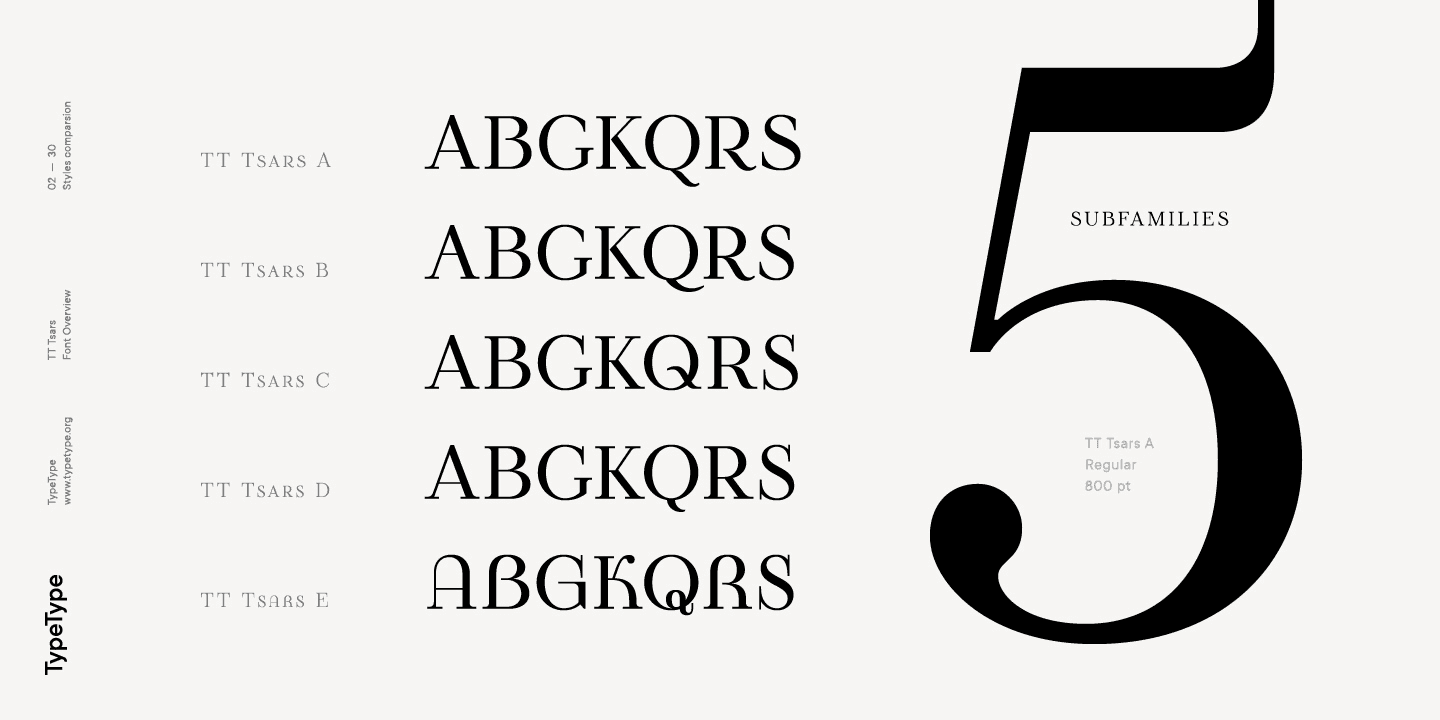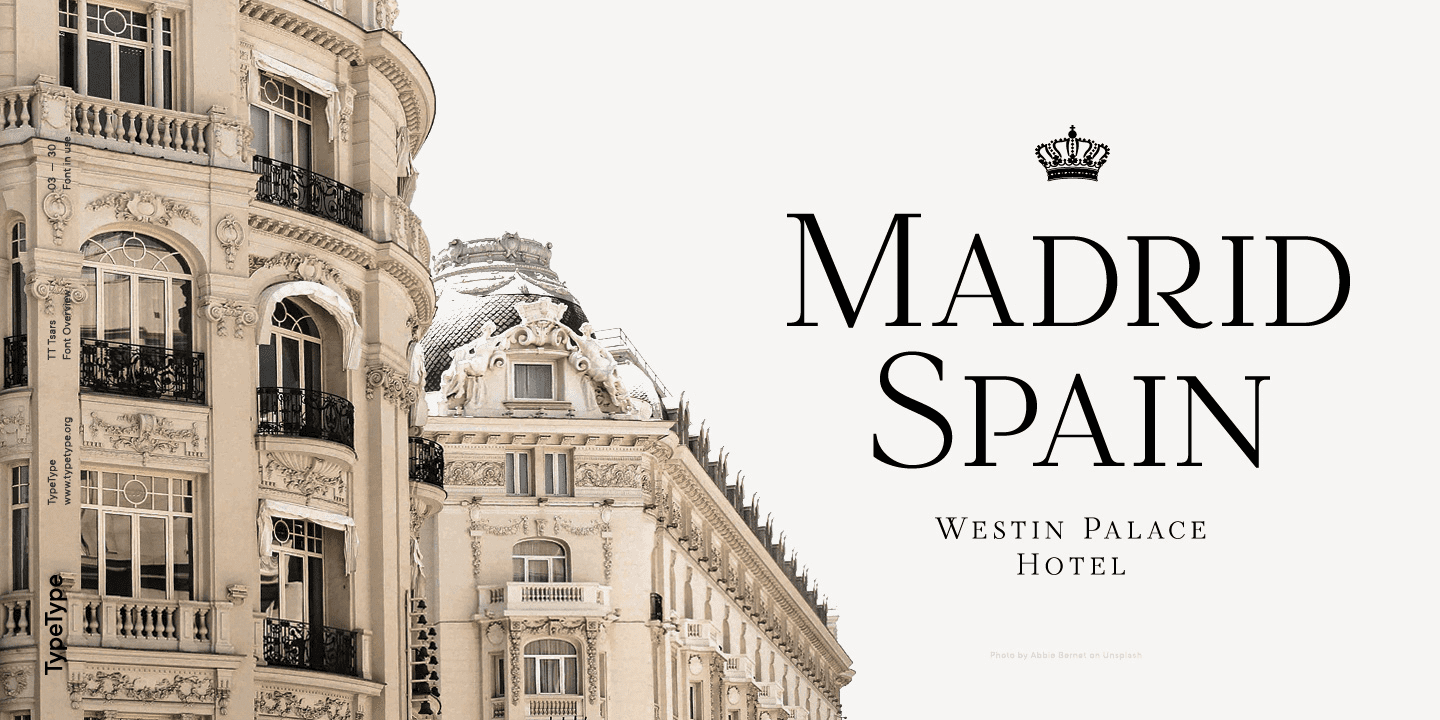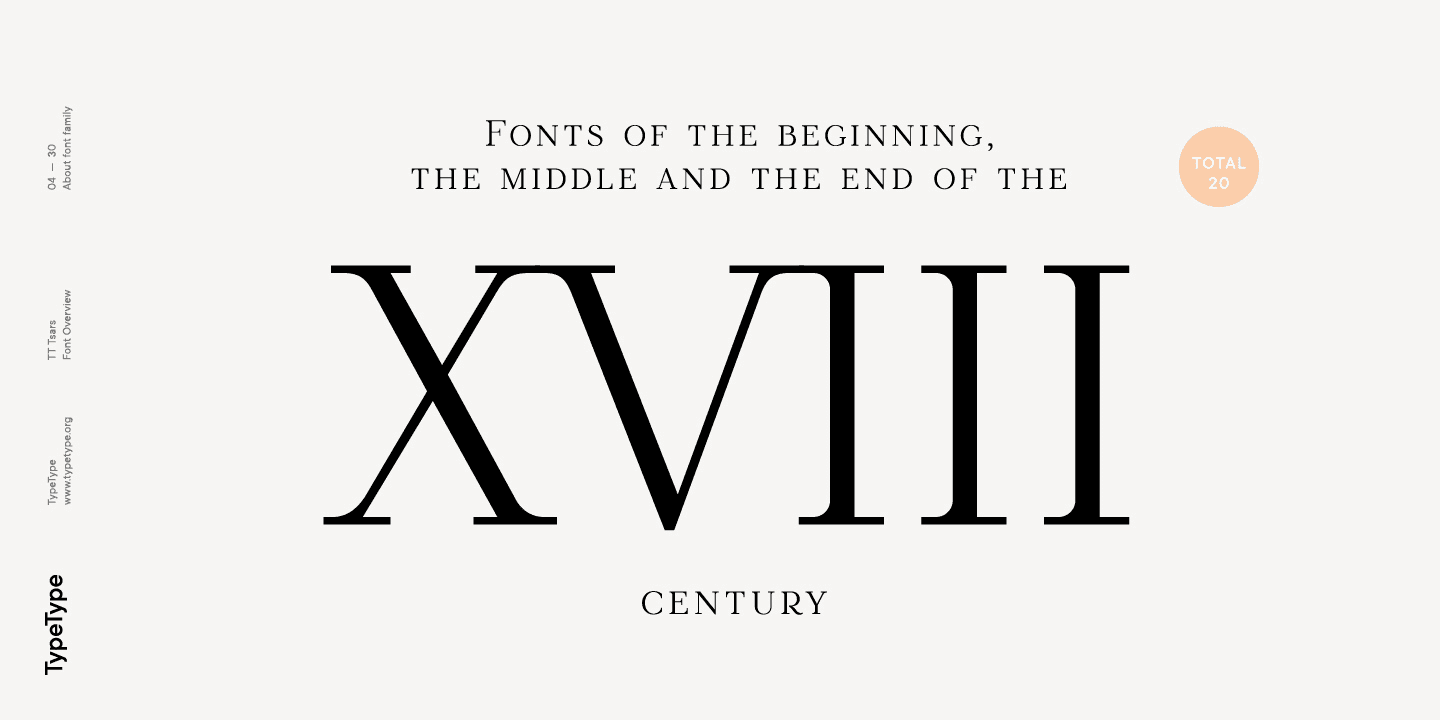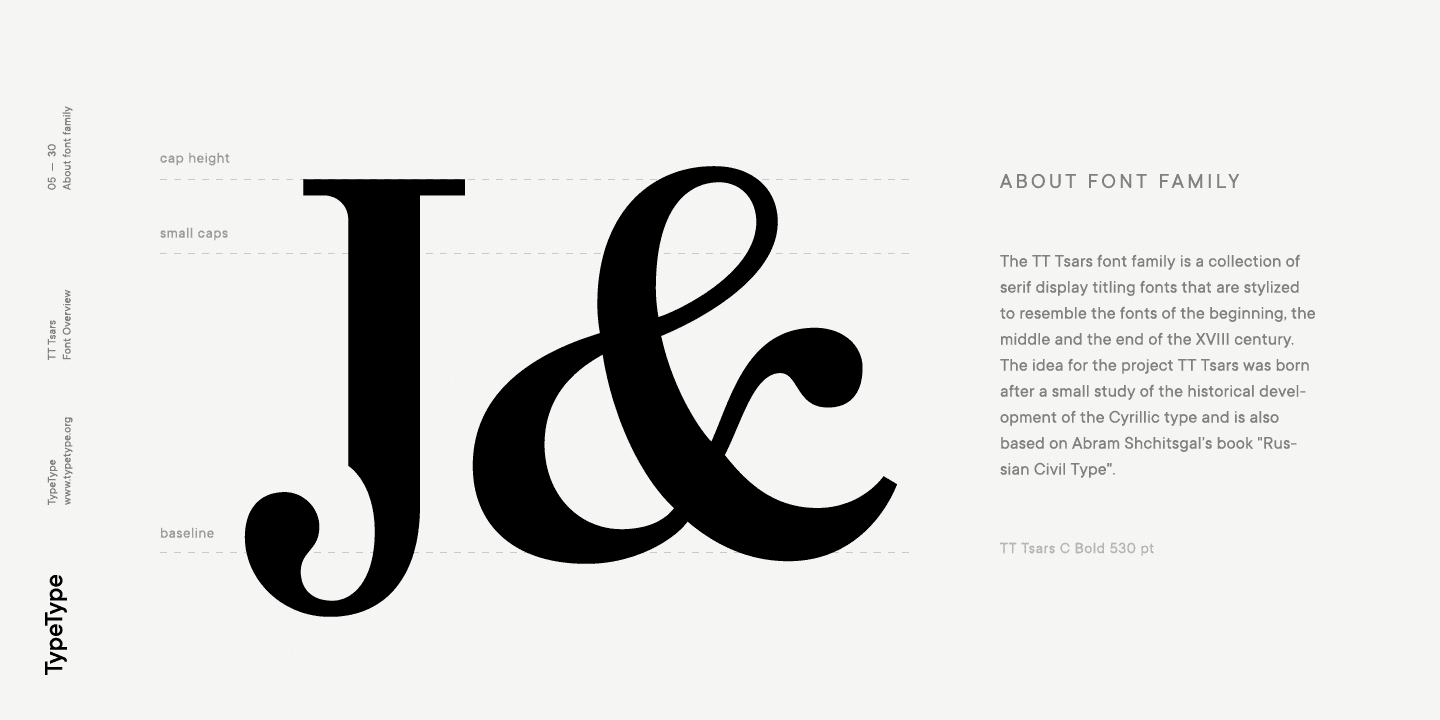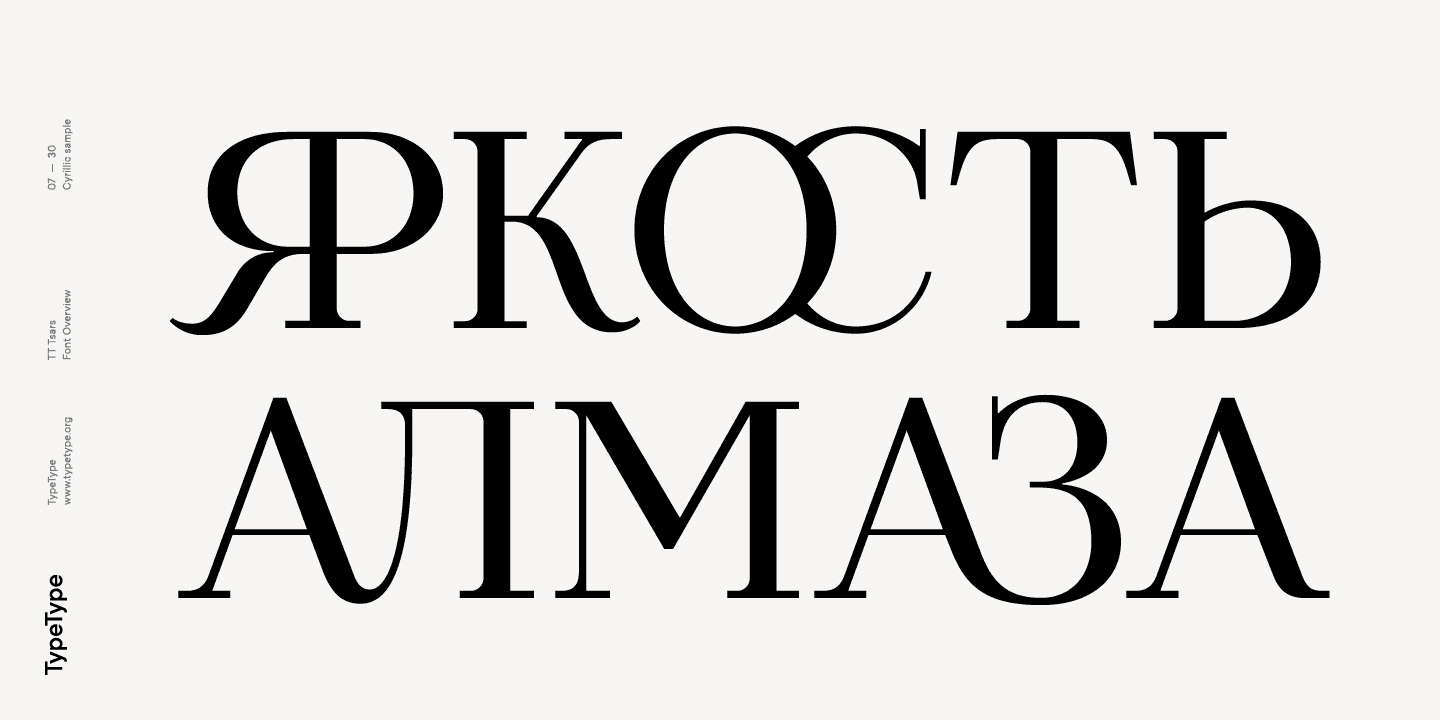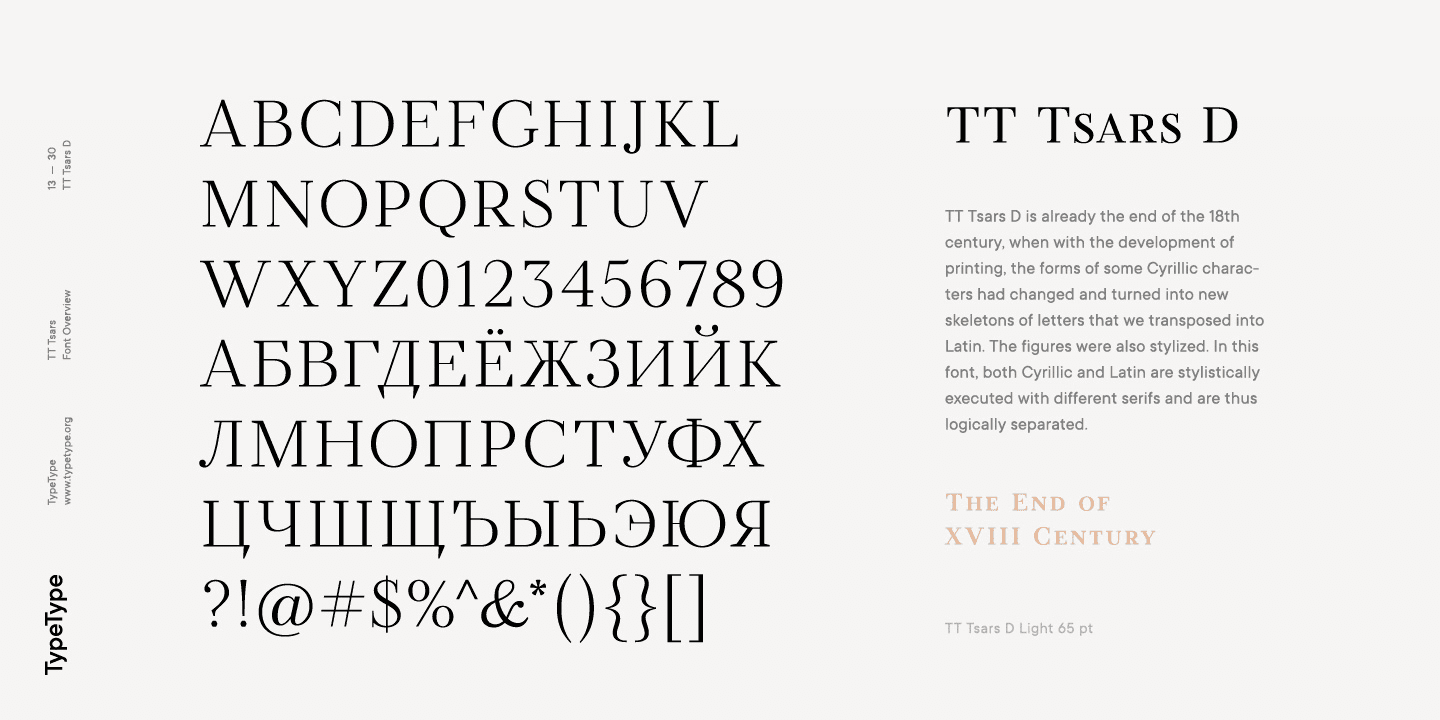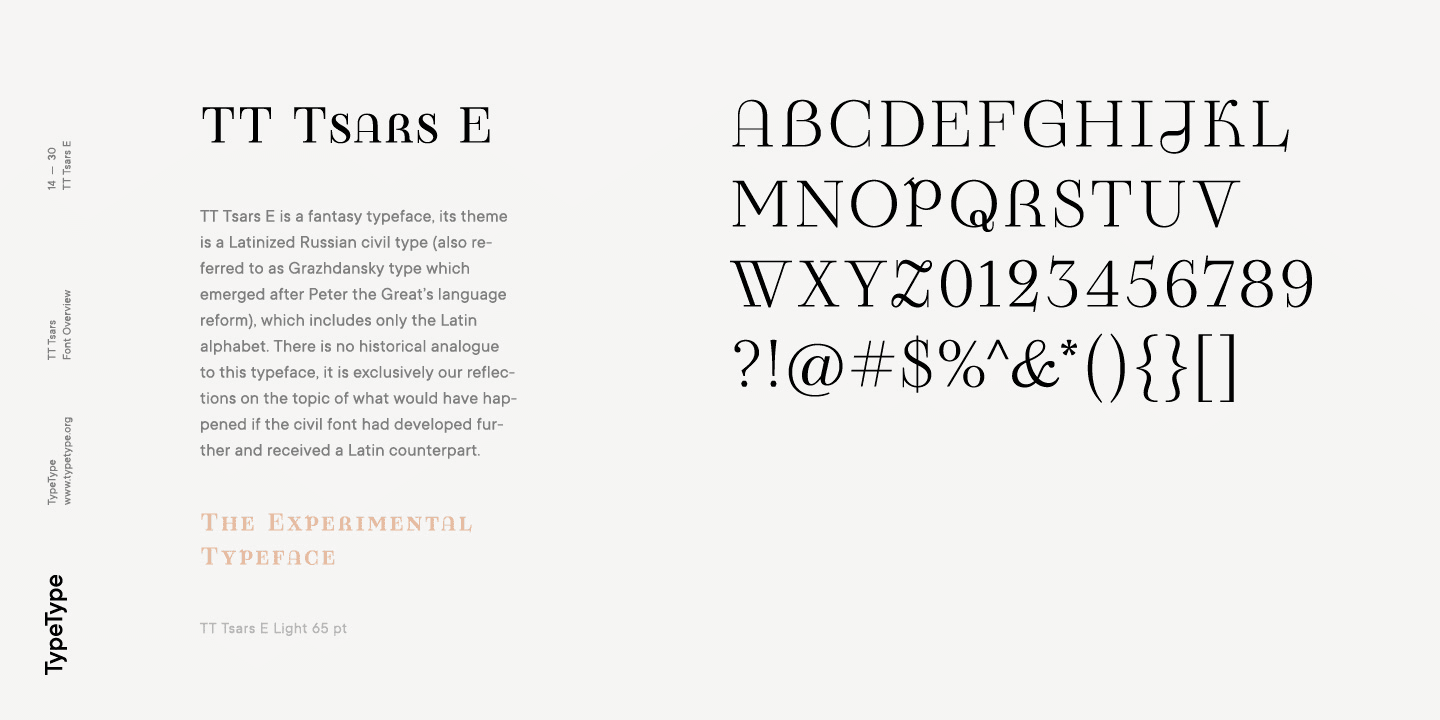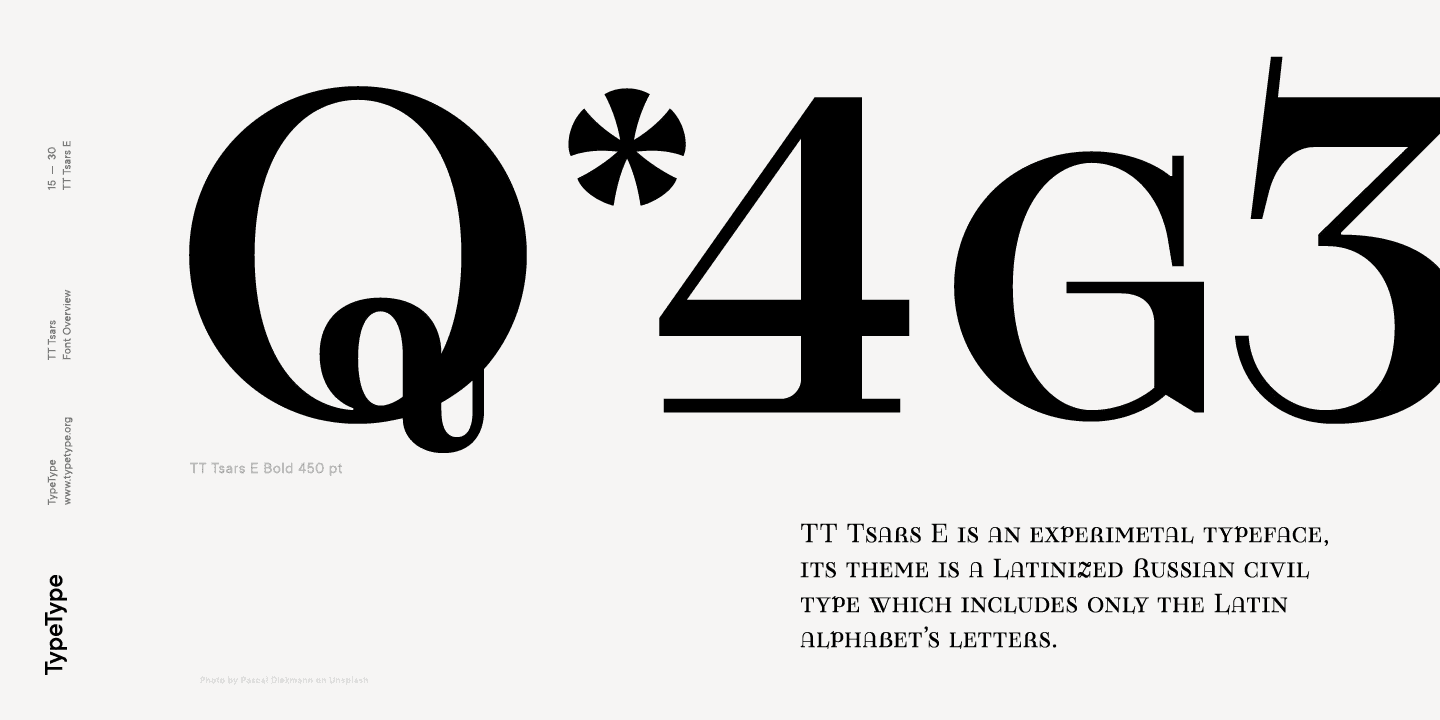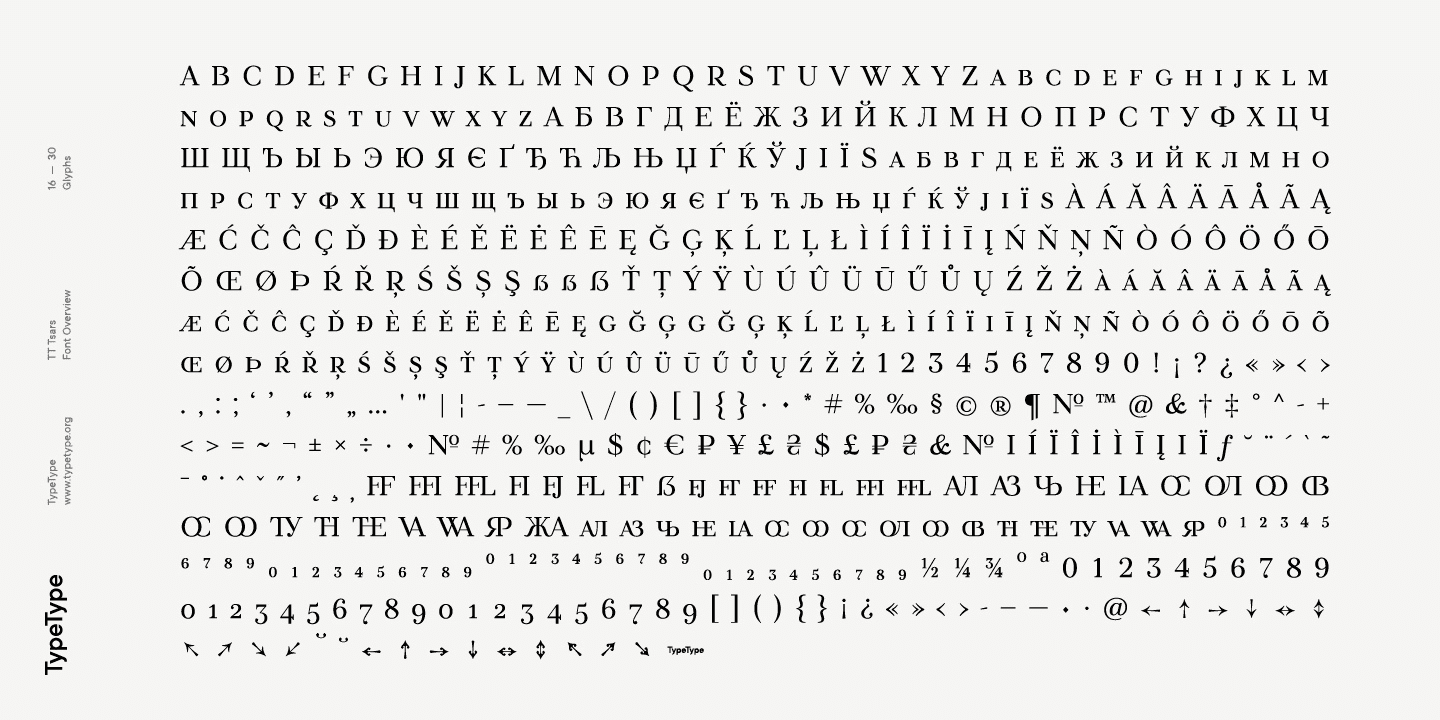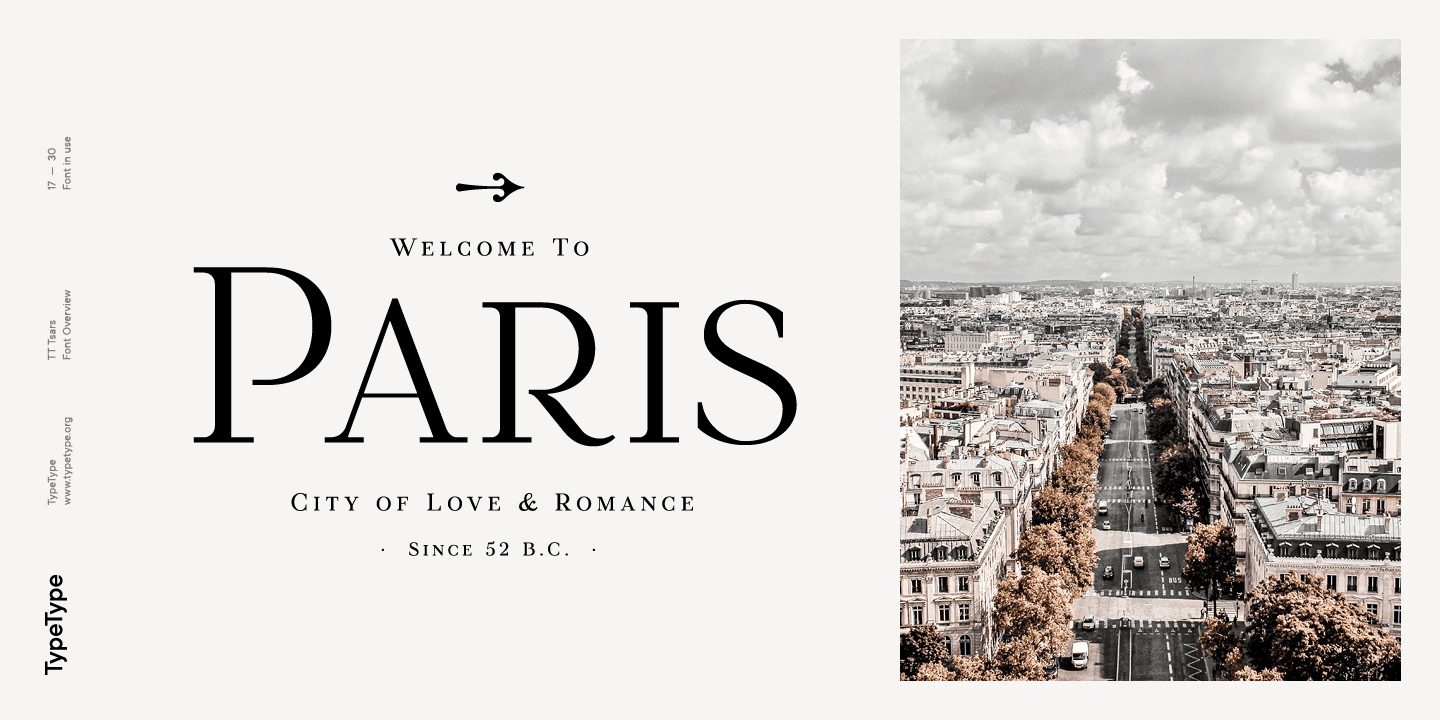
TT Tsars Family (20 fonts)
At the very beginning of the project, we had developed a basic universal skeleton for the forms of all characters in all subfamilies of the family, and later on we added styles, visual features, artefacts and other nuances typical of the given period onto the skeleton. Yes, from the historical accuracy point of view it might be that such an approach is not always justified, but we have achieved our goal and as a result we have created perfectly combined serifs that can be used to style an inscription for a certain time period.
The TT Tsars font family consists of 20 fonts: 5 separate subfamilies, each of which consists of 4 fonts. Each font contains 580 glyphs, except for the TT Tsars E subfamily, in which each font consists of 464 characters. Instead of lowercase characters in the typeface, small capitals are used, which also suggests that the typeface is rather a display than text one. In TT Tsars you can find a large number of ligatures (for Latin and Cyrillic alphabets), arrows and many useful OpenType features, such as: frac, ordn, sinf, sups, numr, dnom, case, onum, tnum, pnum, lnum, salt (ss01), dlig. TT Tsars A and TT Tsars B families (both the beginning of the 18th century) have different starting points: for TT Tsars A it is Latin, for TT Tsars B it is Cyrillic. The development of the TT Tsars A family began in Latin, the font is based on the royal serif Romain du Roi. Cyrillic alphabet is harmoniously matched to the Latin. The development of the TT Tsars B family began in Cyrillic, which is based on a Russian civil type. Characteristic elements are the curved one-sided serifs of triangular characters (A, X, Y), drops appear in the letter ?, the middle strokes ? and P are adjacent to the main stroke. Latin was drawn to pair with Cyrillic. It is still based on the royal serif, but somewhat changed: the letters B and P are closed, and the upper bar of the letter A rose. This was done for the visual combination of Cyrillic and Latin and at the same time to make a distinction between TT Tsars A and TT Tsars B.
TT Tsars C is now the middle of the 18th century. Cyrillic alphabet itself did not stand still and evolved, and by the middle of the 18th century its forms have changed and become to look the way they are shown in this font family. Latin forms are following the Cyrillic. The figures are also slightly modified and adapted to the type design. In TT Tsars C, Cyrillic and Latin characters are created in parallel. A distinctive feature of the Cyrillic alphabet in TT Tsars C is the residual influence of the flat pen. This is noticeable in such signs as ?, ?, K. The shape of the letters ?, ?, is very characteristic of the period. In the Latin alphabet, a characteristic leg appears at the letter R. For both languages, there is a typical C characterised by an upper serif and the appearance of large, even somewhat bolding serifs on horizontals (T, E, ?, L).